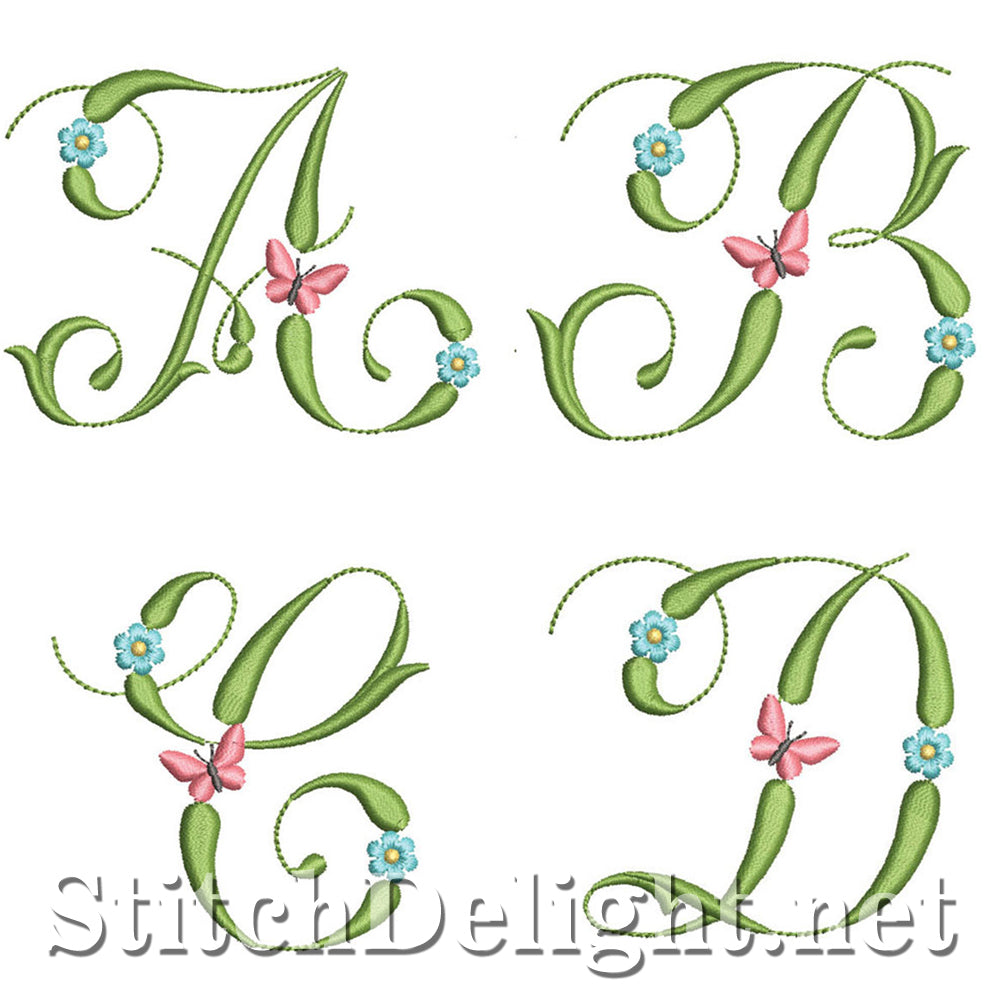
Beautiful font with dainty flowers and butterflies - Letter height of these letters are 67mm / 2.65" - NOW includes the BX format for Embrilliance Essentials